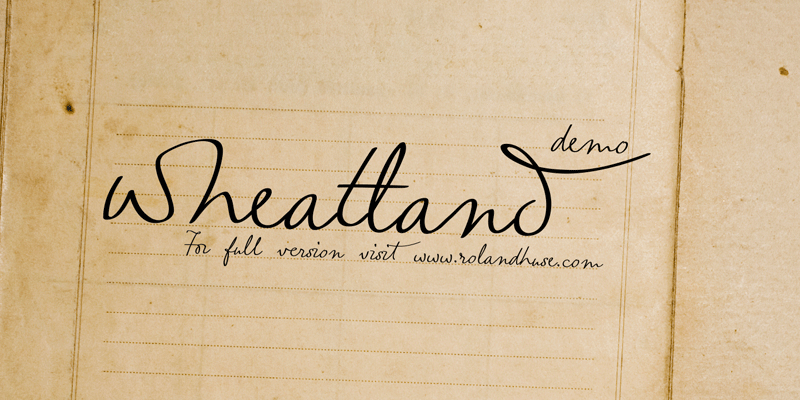
Preview and download Wheatland Font. Created by Runes & Fonts in Script Handwritten styles with Demo license.
WHEATLAND-DEMO is a demo version of a handwriting interpretation font. Contains only lowercase and their alternates and connecting pairs for testing purposes so you can try if it works for you. Full version is donationware and only available at http://www.rolandhuse.com for a limited time. Please note: ! Works well only with softwares that support open type features / Contextual Alternates and Standard Ligatures are available and active. ! Please contatct me if you have any questions or feedback, also about the following: - This family does not language extensions, but I am willing to create any extensions on request - Discovering kerning problems while using - Or any other question or feedback. You MAY NOT sell this font or claim them as your own. You MAY NOT edit or rename this font. You MAY NOT redistribute this font. Thank you & I hope you like this font, Roland http://www.rolandhuse.com https://www.facebook.com/pages/Runes-And-Fonts/123221817784772 |